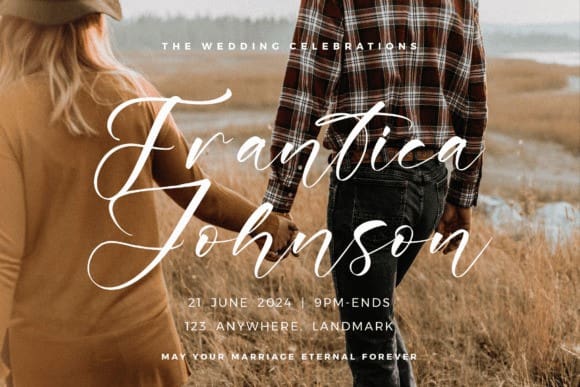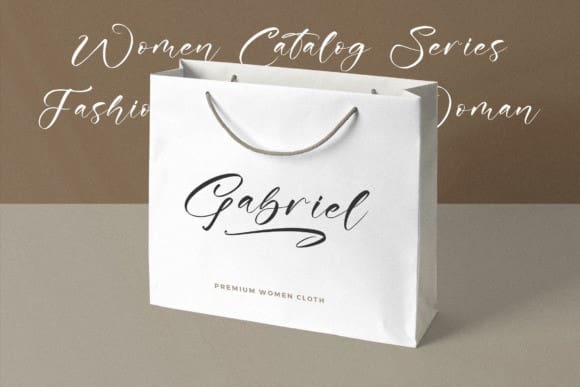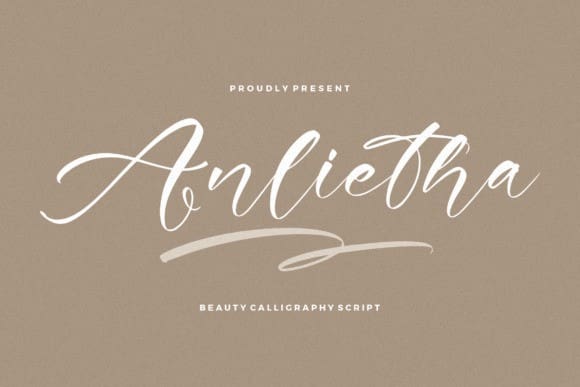
Anlietha Font
Anlietha Font – Beauty Calligraphy Script , from Glorytype Studio, suitable for any projects such as: logos, branding projects, homeware designs, product packaging, mugs, quotes, posters, shopping bags, t-shirts, book covers, name card, invitation cards, greeting cards, label, photography, watermark, special events, and all your other lovely projects that need a beautiful script taste.